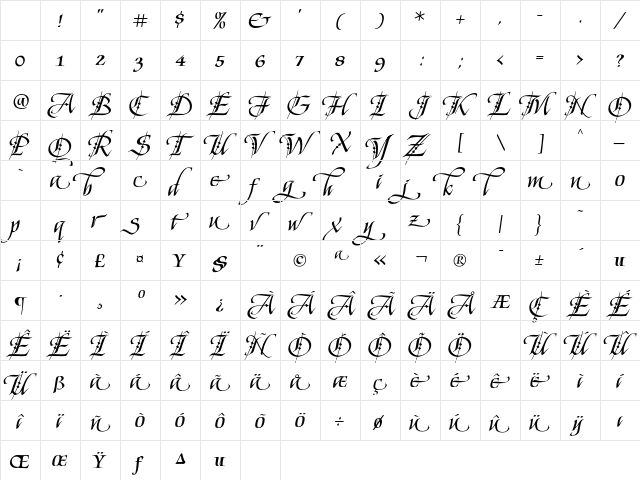
KingsDominion Regular
Design Context for KingsDominion
KingsDominion is a composed and adaptable typeface that performs quietly and consistently across a wide range of design contexts.